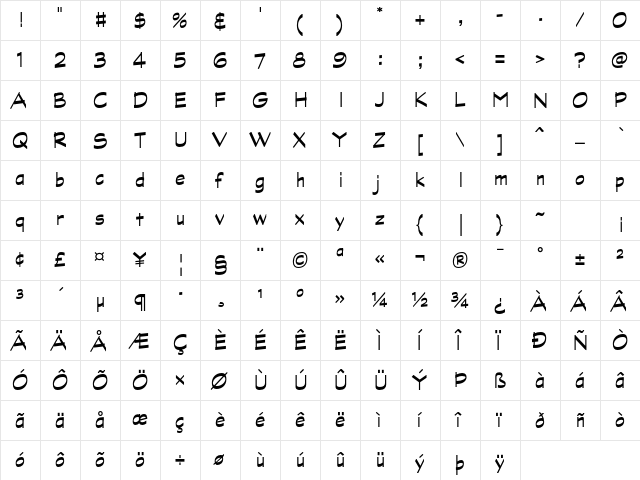
Graphite AT Condensed Bold Regular
Design Context for Graphite AT Condensed Bold Typeface
Graphite AT Condensed Bold is a composed and adaptable typeface that performs quietly and consistently across a wide range of design contexts. Its bold stroke weight gives it real presence on the page. Its narrow stance lets it pack a punch even in space-constrained designs.